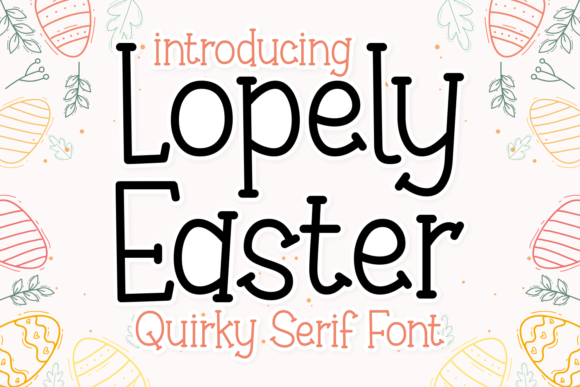
Introducing the Lopely Easter Font, a bouncy and cute serif font that is here to add a touch of joy and playfulness to your projects! Created by the talented team at Creative Fabrica Fonts, this font is the perfect choice for anyone looking to elevate their designs and make them stand out.
Lopely Easter is more than just a font, it's a way to bring life to your creations. With its charming and youthful feel, this font is the ideal companion for projects related to happy celebrations like Easter, birthdays, and anniversaries. Imagine the smiles it will bring to your loved ones' faces when they receive a card or invitation made with this delightful font!
But that's not all – Lopely Easter is incredibly versatile and can be used for a wide range of purposes. Whether you're designing a logo, creating social media graphics, or crafting personalized gifts, this font will add that extra touch of creativity and uniqueness to your work. It's like a little bundle of joy in the form of typography!
One of the key features of Lopely Easter is its bouncy nature. Each letter dances across the page, creating a sense of movement and energy. This font captures the essence of happiness and excitement, making it the perfect choice for children-related projects. Kids will adore the playful vibe it brings to their favorite books, posters, or school projects.
With its captivating curves and carefully crafted details, Lopely Easter is a font that will make your designs truly unforgettable. Its versatility extends beyond just birthdays and Easter – it's also an excellent choice for projects related to gifting, awards, and any occasion that deserves a touch of sophistication and charm.
When you choose Lopely Easter, you're not just getting a font – you're getting a tool that will help you express your creativity and bring your ideas to life. Its eye-catching presence will captivate your audience and leave a lasting impression. Say goodbye to dull and ordinary designs, and welcome a world of endless possibilities with Lopely Easter.